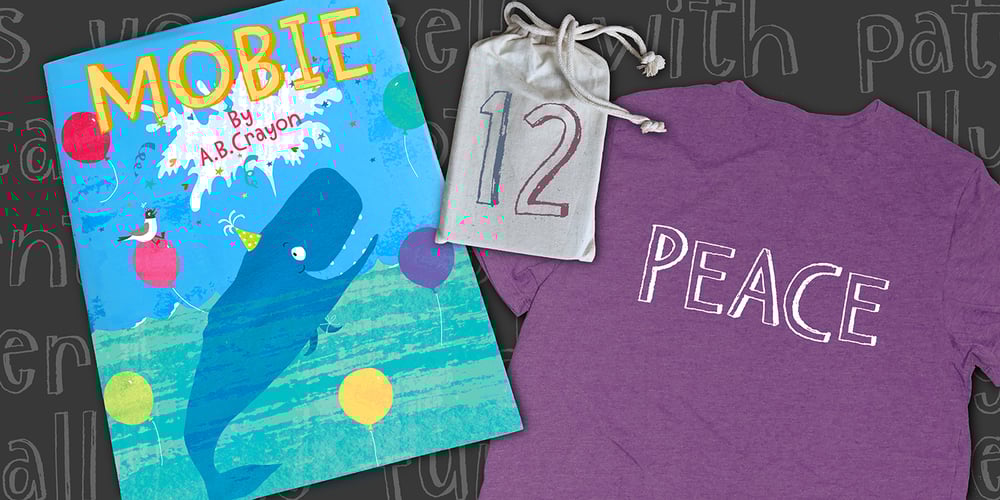
Pattycake
Pattycake font
Pattycake Font Family was designed by Amy Dietrich and published by Atlantic Fonts. Pattycake contains 2 styles and family package options. Pattycake family is artsy and friendly. Pattycake is a 3D sketched block letter font with lots of hand-drawn energy and bounce. Pattycake Solid is a smooth and cheerful stand alone font that complements Pattycake, and works nicely as a loose fill under Pattycake so you can easily have fun with color! Both fonts have double-letter ligatures in upper and lower for plenty of movement, and are ready to brighten any fun project, especially those designed for young people.